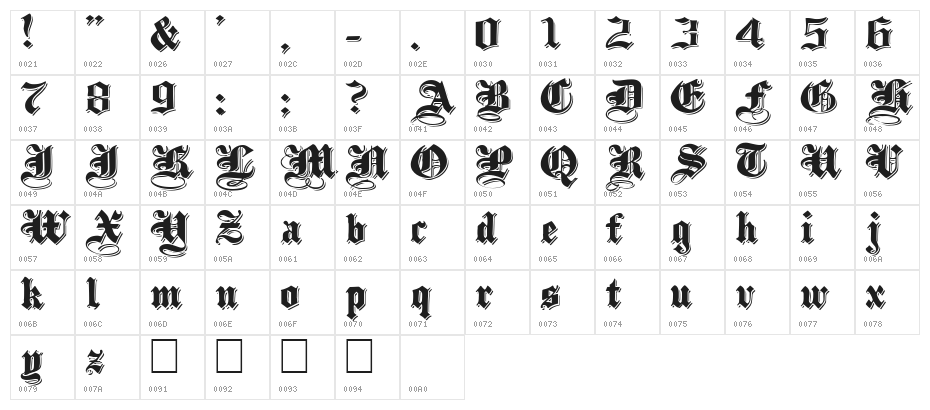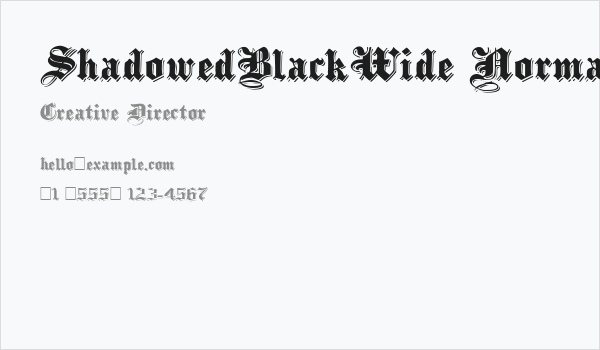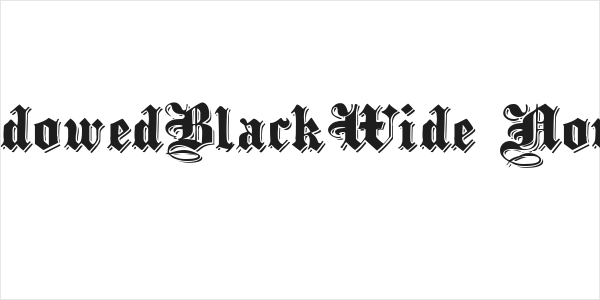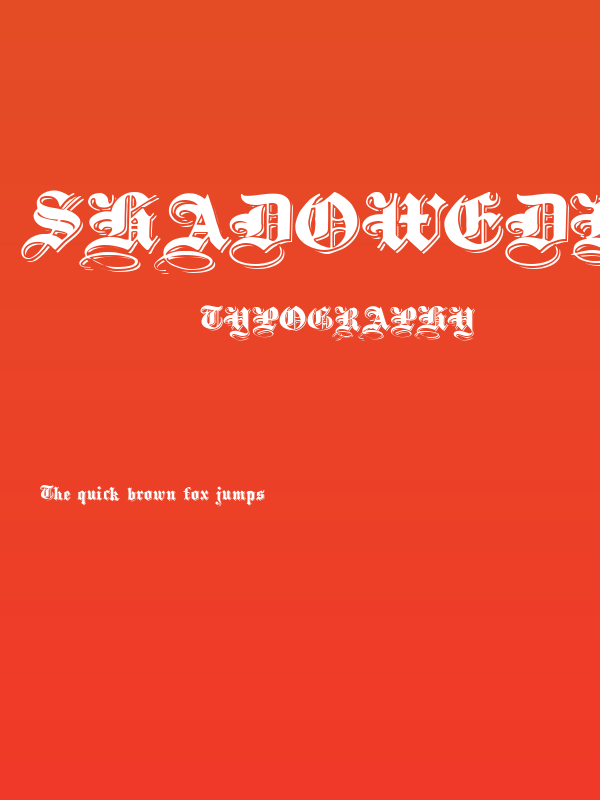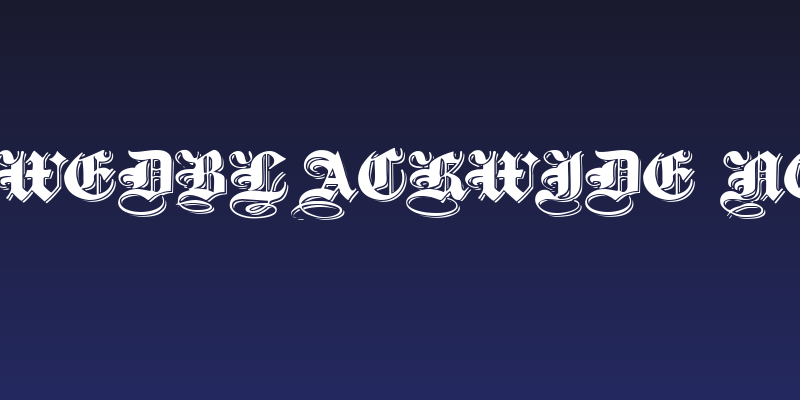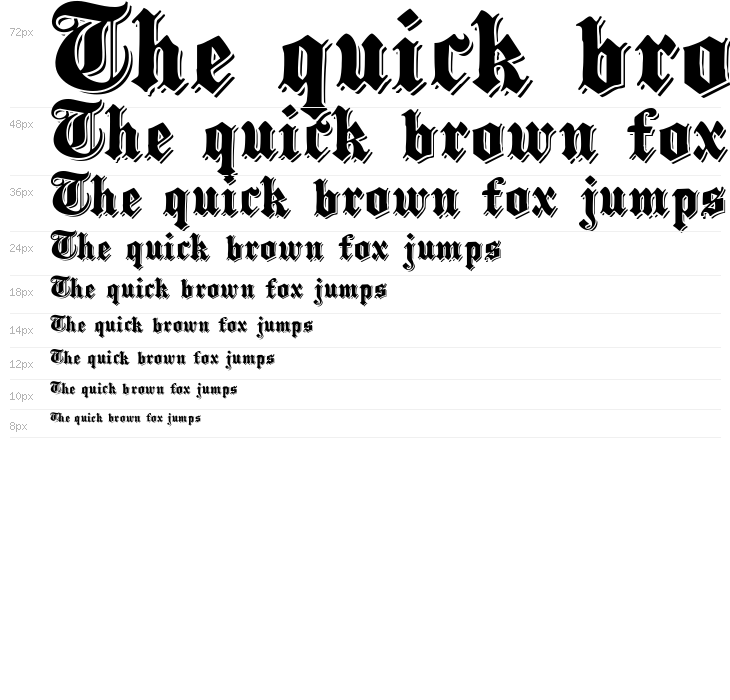
ShadowedBlackWide Normal Font
ShadowedBlackWide Normal Description
This font features a bold and dramatic blackletter style with intricate shadowing that adds depth and dimension to each character. The uppercase letters are ornate, with flourishes and embellishments that give a sense of grandeur and tradition. The lowercase letters maintain the same level of detail, ensuring consistency throughout the typeface. The numbers and special characters are equally stylized, making them suitable for decorative purposes. The overall appearance is reminiscent of medieval script, with a modern twist provided by the shadow effect.
Proposed ProjectsIdeal for projects requiring a historical or gothic aesthetic, such as event posters, book covers, or branding for luxury products.